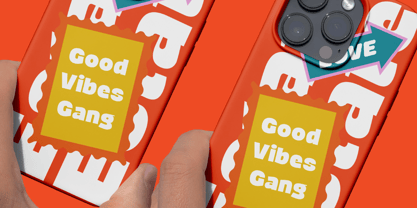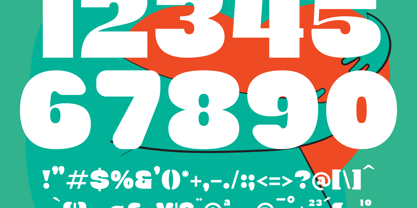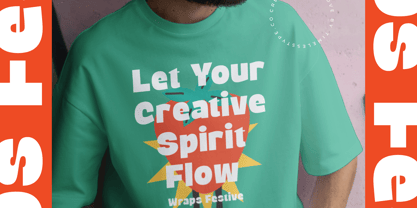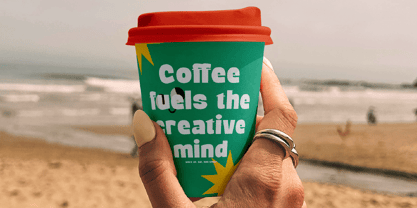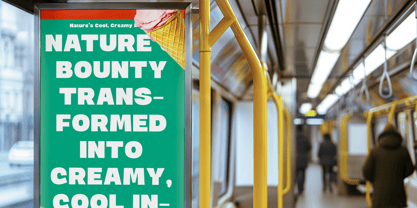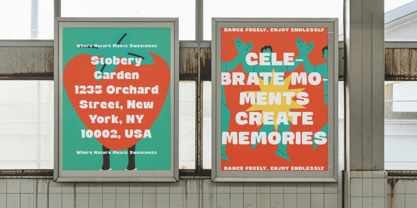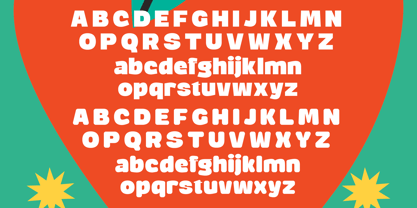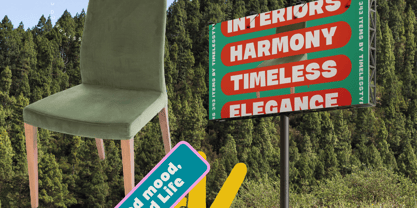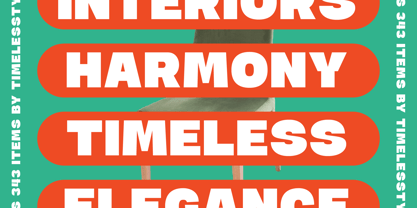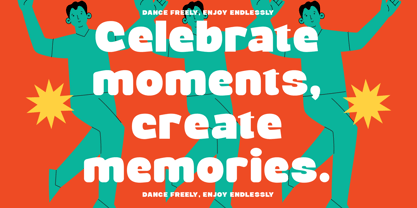
Wraps Festive Round
La familia tipográfica Wraps Festive Round fue diseñada por Heru Utama Putra y publicada por Timelesstype Studio. Wraps Festive Round contiene 2 estilos y opciones de paquete familiar. Más información sobre esta familia
Wraps Festive - Modern Rounded Sans Serif Font , from Timelesstype, Suitable for any projects such as: logos, branding projects, homeware designs, product packaging, mugs, quotes, posters, shopping bags, t-shirts, book covers, name card, invitation cards, greeting cards, label, photography, watermark, special events, and all your other luxury and beautiful projects that need a Luxury Serif taste.